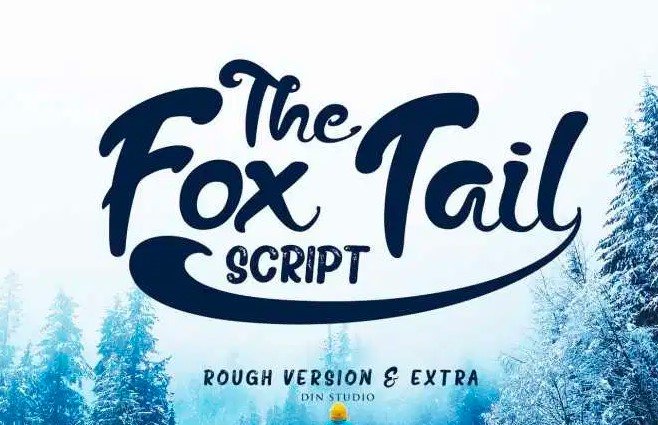
Hey, designers If you want to add more interest and uniqueness to your project, you should definitely consider using The Fox Tail Font. This captivating and visually appealing typeface was designed and crafted by DIN Studio, a well-known font foundry.
The font contains extra styles, unique ligatures, beautiful alternates, and gorgeous glyphs which is enough for making the perfect project. It is a lovely typeface that you will be loved after utilizing this font.